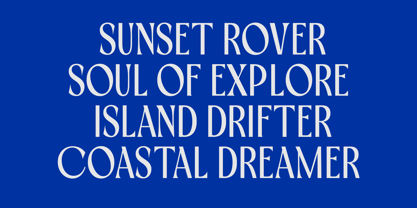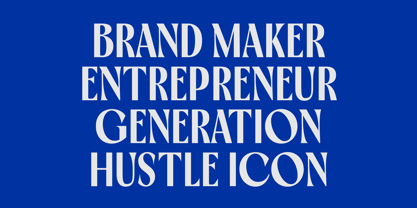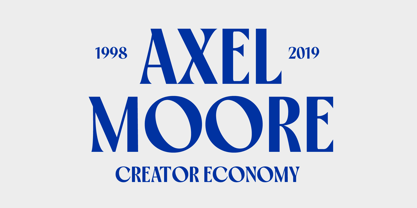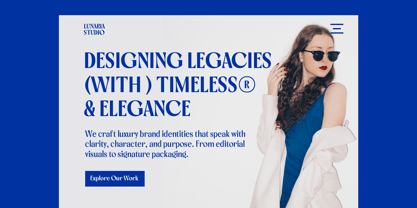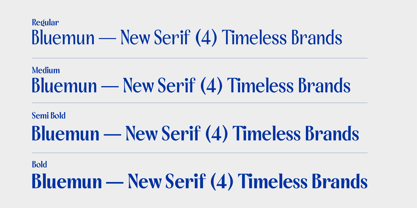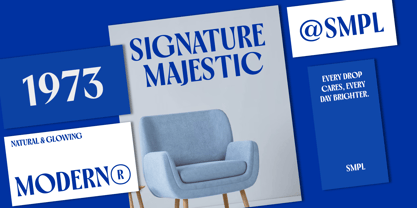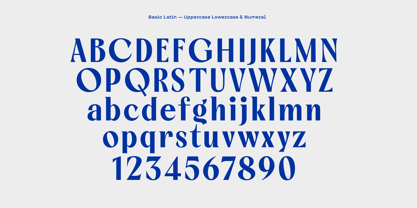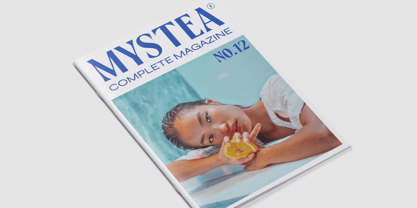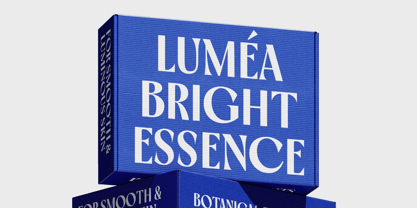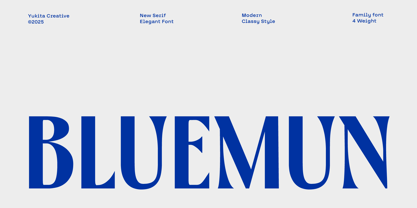
Bluemun
by Yukita Creative
The Bluemun Font Family was designed by Yukita Creative and published by Yukita Creative. Bluemun contains 4 styles and family package options.
Bluemun Serif is a simple yet elegant serif font that brings a classy touch to any design, making it ideal for both modern and timeless projects. Available in four versatile weights — Regular, Medium, SemiBold, and Bold — this typeface is well-suited for a wide range of applications, from headlines and branding to invitations and editorial layouts. With its clean lines and graceful curves, Bluemun Serif offers a refined look that enhances both digital and print designs. It features a stylish yet highly readable serif design, supports multiple languages, and performs smoothly across web and print platforms. Whether you're working on branding, wedding and fashion invitations, magazines, website headers, product packaging, or elegant social media content, Bluemun Serif is crafted to elevate your visual storytelling.